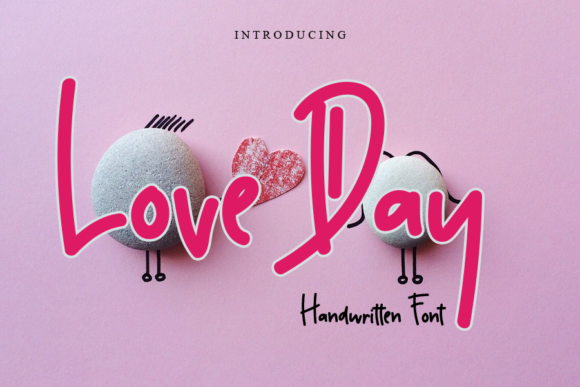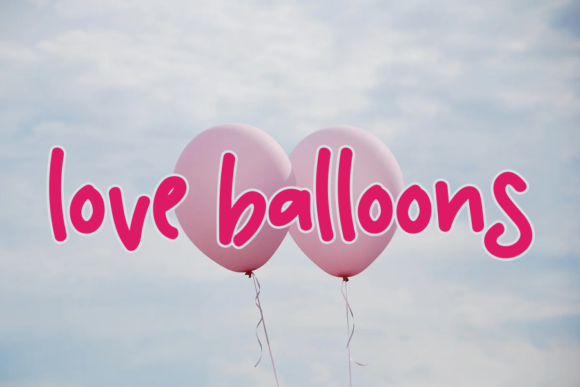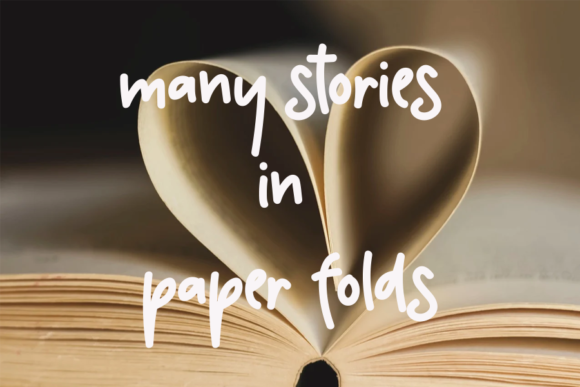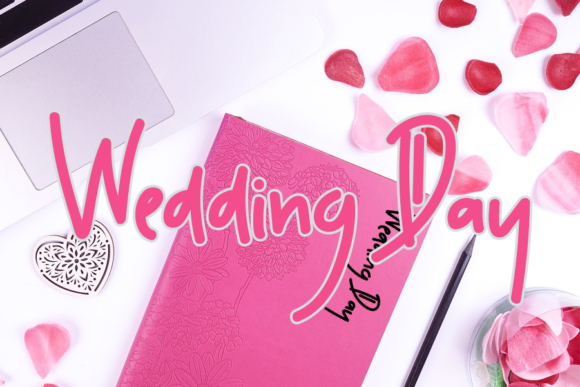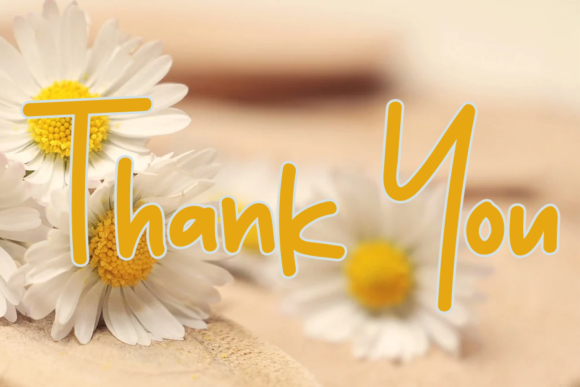
Love Day Font
About Love Day Font
Love Day is a delightful and whimsical handwritten font that brings a sense of sweetness and playfulness to your designs. With its dainty and joyful style, this font is perfect for adding a romantic and personalized touch to various design projects, especially those related to love and celebrations.
The charm of Love Day lies in its quirky and handcrafted appearance. The letters have a unique and whimsical flair, as if they were written with love and excitement. This makes the font perfect for conveying a sense of joy and lightheartedness in your designs.
Whether you’re designing wedding invitations, greeting cards, love notes, or any other romantic-themed project, Love Day will infuse your designs with a touch of whimsy and personality. The font’s dainty and joyful style creates an inviting and romantic atmosphere, making it ideal for capturing the essence of special moments.
The versatility of Love Day allows it to be used in a variety of design contexts. From social media graphics and branding materials to posters and advertisements, Love Day adds a playful and romantic touch that can attract attention and evoke positive emotions.
Embrace the quirkiness and uniqueness of Love Day and let it inspire your creativity. Mix and match the font with complementary design elements, colors, and illustrations to create captivating and personalized compositions. The font’s whimsical style invites you to explore different design possibilities and create designs that truly stand out.
In summary, Love Day is a sweet and quirky handwritten font that brings a joyful and romantic touch to your designs. Its dainty and whimsical style makes it ideal for wedding invitations, cards, and other projects that require a personalized and romantic aesthetic. Let Love Day add a playful and lighthearted vibe to your designs and make your creations shine with love and joy.